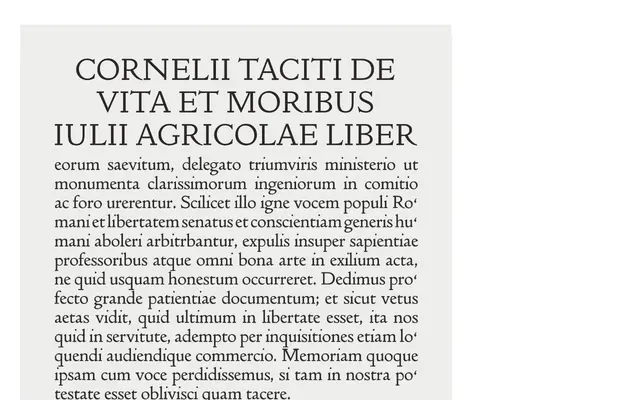
Doves Type Headline
An optically adjusted display cut of the revived Doves Press type, drawn lighter and sharper than the Text version for use at sizes above 20 pt.
Evolved from work on the Thames Tideway project, this headline cut of Doves Type is lighter and crisper than its text companion, calibrated for titles and headings rather than body copy. The Doves Press type itself was one of the most celebrated faces of the Arts and Crafts movement, and this revival by Robert Green brings it back in a form suited to contemporary display work. Recommended for use above 20 pt, it pairs with Doves Type Text as a properly optically scaled system.
Based on the historic Doves Press type, itself a revival of a fifteenth-century Venetian roman; the Headline cut is optically adjusted for display sizes, making it a display serif in practical application.